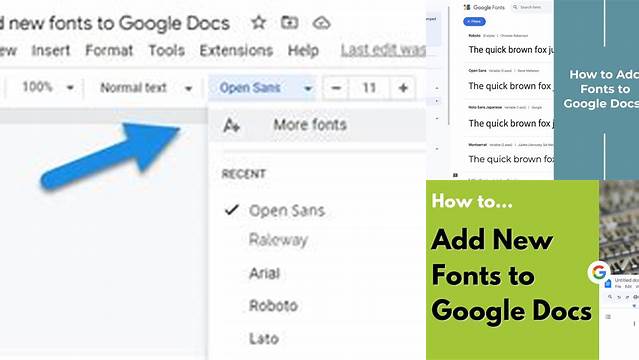
Add New Fonts To Google Docs: Easy Steps & Pro Tips
Hey guys, ever found yourself staring at the default font options in Google Docs and just thinking, "Ugh, is this all there is?" You're not alone! While Google Docs is an amazing, collaborative tool, its initial font selection can feel a little... well, vanilla. But what if I told you that you don't have to settle? What if you could actually add new fonts to Google Docs app and elevate your documents from basic to brilliant? Good news, you totally can! This isn't just about making your reports look pretty; it's about making them pop, ensuring your presentations are persuasive, and giving your creative projects that unique flair they deserve. Learning how to add new fonts to Google Docs app is a game-changer for anyone who wants their digital documents to stand out. So, let's dive deep and explore all the awesome ways you can expand your font horizons in Google Docs, making your work not just readable, but truly memorable. We'll cover everything from the built-in options to clever workarounds, ensuring you become a font-adding pro in no time.
1. Understanding Google Docs Font Options
When you first open a Google Docs document, you're presented with a standard array of fonts. These are your trusty, everyday workhorses like Arial, Times New Roman, and Google's own Roboto. But, guys, the true power of Google Docs font options lies beyond this initial list. Many people don't realize that Google Docs actually integrates seamlessly with the entire Google Fonts library, a massive collection of hundreds, if not thousands, of open-source fonts that are completely free to use. This means you have a goldmine of typographic choices just waiting to be discovered, right within the application itself! To access these additional fonts, you simply need to click on the font dropdown menu, and then select "More fonts..." at the very top. This action opens up a whole new world of possibilities, allowing you to browse, filter, and add a vast array of beautiful, professional, and unique typefaces to your personal Google Docs font list. You can search by name, filter by style (like serif, sans-serif, display, handwriting, monospace), and even by script, ensuring you find the perfect font for any project. This integrated access to the Google Fonts library is one of the most powerful and often underutilized features of Google Docs, transforming it from a basic word processor into a surprisingly robust design tool. So, don't limit yourself to the defaults; explore those Google Docs font options and unleash your creativity!
2. Exploring Custom Fonts in Google Docs
Custom fonts in Google Docs are the secret sauce to making your documents truly unique and professional. While Google Docs offers a decent default selection, tapping into its extended font library, which is essentially the entire Google Fonts repository, allows for incredible customization. Guys, it's super easy to get started with these custom fonts. Navigate to the font dropdown menu in your Google Docs toolbar, and instead of picking one of the pre-listed options, simply click on "More fonts..." at the top. This will open a dialog box where you can browse a vast collection of typefaces. You'll see filters for categories like 'Serif', 'Sans Serif', 'Display', 'Handwriting', and 'Monospace', making it a breeze to narrow down your search. You can also search by name if you have a specific font in mind. Once you find a font you like, just click on it to select it, and then click "OK." Voila! That font is now added to your personal list in Google Docs and will be available for all your future documents. This process empowers you to move beyond generic designs and craft documents that perfectly reflect your brand, your message, or your personal style. Using custom fonts in Google Docs ensures that your reports, presentations, and creative projects stand out in a sea of Arial and Times New Roman. It's a simple step that yields significant visual impact, making your work more engaging and memorable. So go ahead, experiment with different styles, find your favorites, and give your documents that extra sparkle.
3. Expanding Your Google Docs Font Library
Ready to seriously level up your document design? Expanding your Google Docs font library is where the real fun begins, guys! It’s all about discovering and integrating a wider range of typefaces beyond the standard few that appear by default. Think of it like this: Google Docs comes with a basic starter pack of fonts, but there's a huge, hidden treasure chest of thousands more just waiting to be unlocked. The key to this treasure chest is the "More fonts..." option in your font dropdown menu. When you click it, you're not just adding a font; you're expanding your personal library within Google Docs. You can browse fonts by popularity, by alphabetical order, or even by specific categories like display, handwriting, or monospace. This makes it incredibly easy to find something that perfectly fits the tone and purpose of your document, whether you're crafting a formal business proposal or a whimsical party invitation. Each font you select from this vast Google Fonts directory is permanently added to your accessible list, meaning you only have to go through the "More fonts" process once for each typeface. This seamless integration ensures that once a font is added, it's always there for you, ready to be used in any new or existing document. By actively expanding your Google Docs font library, you gain greater creative control, allowing for more expressive and visually appealing content that truly reflects your personal or professional brand. Don't be shy; dive into that "More fonts" menu and start building a collection that makes your documents shine!
4. Installing New Fonts for Google Docs
When we talk about installing new fonts for Google Docs, it's important to clarify something, guys: you're not actually installing them onto your computer in the traditional sense, like you would for Microsoft Word. Instead, you're activating them from Google's extensive library within the Google Docs interface itself. This distinction is crucial because it means you don't need to download any files or mess with your operating system's font folders. It’s all cloud-based and wonderfully straightforward! The process is initiated by simply going to the font selection dropdown menu in Google Docs and clicking on the "More fonts..." option. This opens up a special window that connects directly to the Google Fonts database. Here, you can browse through thousands of available fonts. You can use filters to narrow down your search by categories like Sans Serif, Serif, Display, Handwriting, or Monospace, or even by language. Once you find a font you like, you just click on it, and it gets added to the "My fonts" list on the right side of the window. After you click "OK," that font is instantly available in your main font dropdown menu for the current document and all future documents. This incredibly user-friendly approach to installing new fonts for Google Docs means anyone, regardless of technical skill, can personalize their documents with a vast array of typographic choices. It's a seamless way to enhance your creative output without the hassle of traditional software installations.
5. Google Docs Font Management
Effective Google Docs font management is key to maintaining a streamlined and efficient workflow, especially once you've started adding a bunch of new fonts. Guys, after you've used the "More fonts..." option to expand your selection, your font dropdown menu can start to get a little long. While having many options is great, it can also become cumbersome if you're constantly scrolling past fonts you rarely use. Luckily, Google Docs provides a simple way to manage your added fonts. When you go back to the "More fonts..." dialog box, you'll notice that the fonts you've previously added have a checkmark next to them. If you decide you no longer need a particular font in your primary list, you can simply uncheck it. This doesn't delete the font from the Google Fonts library, of course, but it does remove it from your personal, quick-access list in Google Docs, helping to declutter your menu. This makes it much easier to quickly find the fonts you use most often, improving your productivity and reducing visual clutter. Furthermore, consider organizing your documents with a consistent set of fonts for branding or specific project types. Good Google Docs font management isn't just about adding new fonts; it's also about curating your selection to ensure your creative tools are always ready and easy to navigate. So, take a moment to review your font list from time to time and prune any that no longer serve your creative needs.
6. Enhancing Google Docs Typography
Enhancing Google Docs typography goes far beyond just picking a nice font; it's about making deliberate choices that improve readability, convey mood, and reinforce your message. Guys, your choice of typeface, its size, line spacing, and even letter spacing all contribute to the overall impact of your document. For instance, using a clear, sans-serif font like Open Sans or Montserrat for body text often improves readability on screens, while a more decorative 'Display' font might be perfect for a headline or a logo. To truly enhance your typography, consider font pairing: combining two or three different fonts that complement each other. A common strategy is to use a strong, distinctive font for headings and a clean, legible font for the body text. You can also play with font weights (bold, light, regular) to create visual hierarchy and draw attention to important information without changing the font itself. Remember, consistency is king! Once you've chosen your fonts, stick with them throughout your document or series of documents to maintain a professional and cohesive look. Experiment with line spacing (under Format > Line & paragraph spacing) to give your text room to breathe, preventing it from looking too dense. By thoughtfully selecting and applying fonts, you transform your Google Docs documents from plain text into engaging, visually appealing communications. Mastering enhancing Google Docs typography isn't just about aesthetics; it's about effective communication and making your work more impactful for your audience.
7. Font Add-ons for Google Docs
While Google Docs offers direct access to the Google Fonts library, there are also some fantastic font add-ons for Google Docs that can further enhance your typographic capabilities. Guys, these add-ons, available through the Google Workspace Marketplace, can provide additional functionalities, make font selection easier, or even introduce fonts from other sources. One of the most popular and useful font add-ons is "Extensis Fonts" (which we'll discuss in more detail later). This particular add-on gives you a different interface for browsing and adding Google Fonts, often with better previewing options and advanced filtering. It can sometimes feel more intuitive for users who prefer a dedicated font browsing experience separate from the native Google Docs menu. Other add-ons might not directly add new font files in the same way, but they can offer tools for font pairing suggestions, character mapping for special symbols, or even help with consistent font application across large documents. To find these add-ons, simply go to "Extensions > Add-ons > Get add-ons" in your Google Docs menu bar. Search for "fonts" or "typography" to see the available options. Before installing any add-on, always check its reviews and permissions to ensure it's reputable and safe. While the native "More fonts" feature covers most needs, exploring font add-ons for Google Docs can unlock specialized features that take your document design to the next level, particularly if you're a power user looking for more advanced control or unique browsing experiences.
8. Using Extensis Fonts with Google Docs
For those of you who want an even more robust and visually rich way to browse and manage your Google Fonts within Google Docs, using Extensis Fonts with Google Docs is an absolute game-changer, guys. Extensis Fonts is a popular add-on available in the Google Workspace Marketplace, and it acts as a powerful interface to the same Google Fonts library that's built directly into Google Docs. However, it offers a superior browsing experience. Instead of a simple list, Extensis Fonts typically provides a cleaner, more visual grid layout with larger previews of each font, making it much easier to see how a typeface will look before you commit to adding it. You can quickly filter fonts by category, popularity, or even visual characteristics, allowing for a more intuitive discovery process. To get started, go to "Extensions" in your Google Docs menu, then "Add-ons," and click "Get add-ons." Search for "Extensis Fonts," install it, and grant the necessary permissions. Once installed, you can open it from "Extensions > Extensis Fonts > Start." A sidebar will appear on the right of your document, displaying the font library. You can then select text in your document and apply fonts directly from the Extensis Fonts sidebar, or simply add new fonts to your Google Docs menu. This add-on is particularly useful if you frequently experiment with new fonts or need to quickly compare different styles. It streamlines the font selection process, making using Extensis Fonts with Google Docs a highly recommended step for anyone serious about elevating their document's aesthetics and efficiency.
9. Google Workspace Fonts
When we talk about Google Workspace fonts, we're essentially referring to the comprehensive typographic ecosystem available across Google's suite of productivity tools, and Google Docs is a primary beneficiary, guys. The core of this system is the expansive Google Fonts library, which is seamlessly integrated into Google Docs, Sheets, Slides, and even Google Sites. This means that any font you add through the "More fonts..." option in Google Docs becomes available not just in that specific document, but across your entire Google Workspace account for all your documents, spreadsheets, and presentations. This consistency is a huge advantage for branding and maintaining a cohesive visual identity across all your digital assets. Imagine creating a beautiful presentation in Google Slides with a unique font, then effortlessly using that exact same font for your corresponding report in Google Docs – no re-downloading or re-installing required! This unified font experience is a cornerstone of Google Workspace fonts, ensuring that your design choices are effortlessly carried over between applications. It fosters a more professional and polished look for all your work, whether you're collaborating with a team or creating documents for personal use. By leveraging the power of Google Fonts throughout your Workspace, you unlock a level of design flexibility and consistency that traditional desktop applications often struggle to match, making your entire digital workflow much more efficient and visually appealing.
14. Google Docs Font Compatibility
One of the biggest advantages when you add new fonts to Google Docs app is the incredible Google Docs font compatibility it offers, guys. Because all the fonts you add come from the Google Fonts library, they are inherently designed to work seamlessly across different devices, operating systems, and web browsers. This means you don't have to worry about the dreaded